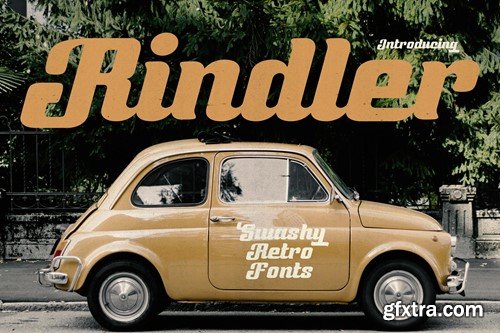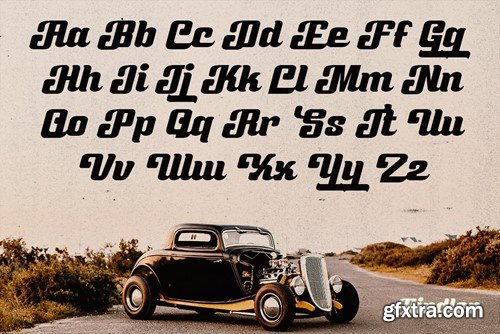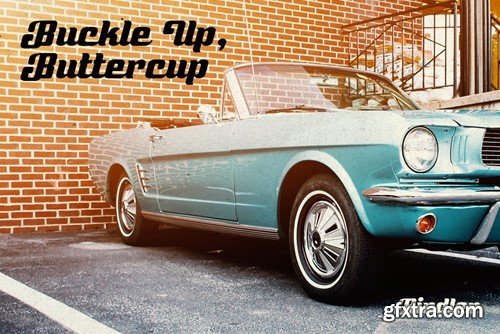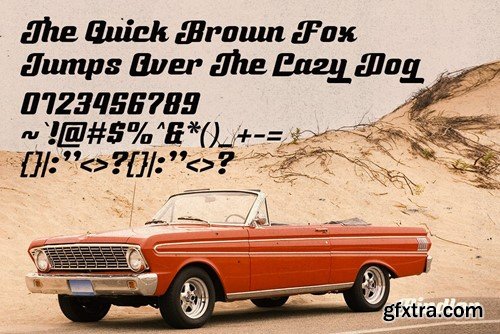
Rindler - Retro Script Fonts
Revitalize your style with Rindler, the epitome of vintage elegance crafted for the modern soul. Inspired by the sleek lines of vintage car emblems and the nostalgic glow of neon motel signs, Rindler brings you an unforgettable journey through the golden era of the 1970s. Experience the allure of yesteryear with Rindler's unmistakable charm. Whether you’re crafting a brand identity or adding a touch of vintage flair to your designs, it is your passport to timeless sophistication. What's Inside: